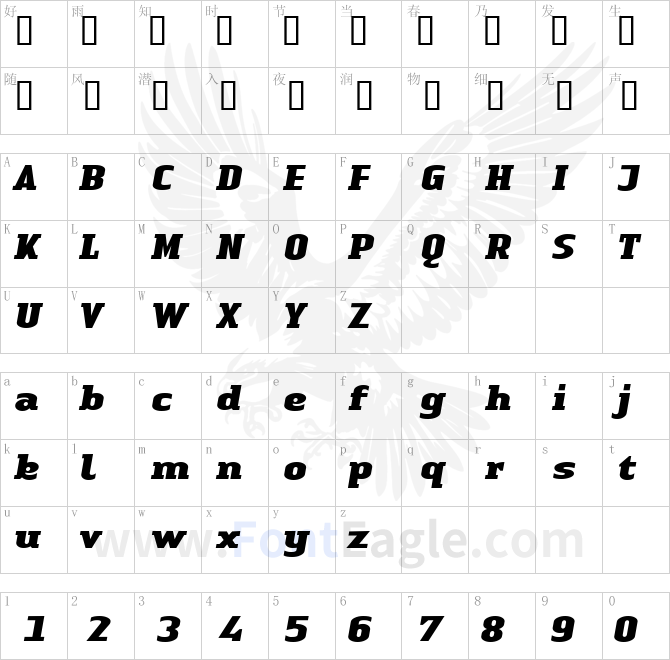
- Font name:LTAuthenticSerif Medium
- Font Subfamily ID:ParaType,Inc.onthebehalfandbythenameofLinotypeLibraryGmbH: Linotype Authentic Serif BlackItalic: 2000
- Font Full Name:Linotype Authentic Serif BlackItalic
- Postscript:LTAuthenticSerif-BlackItalic